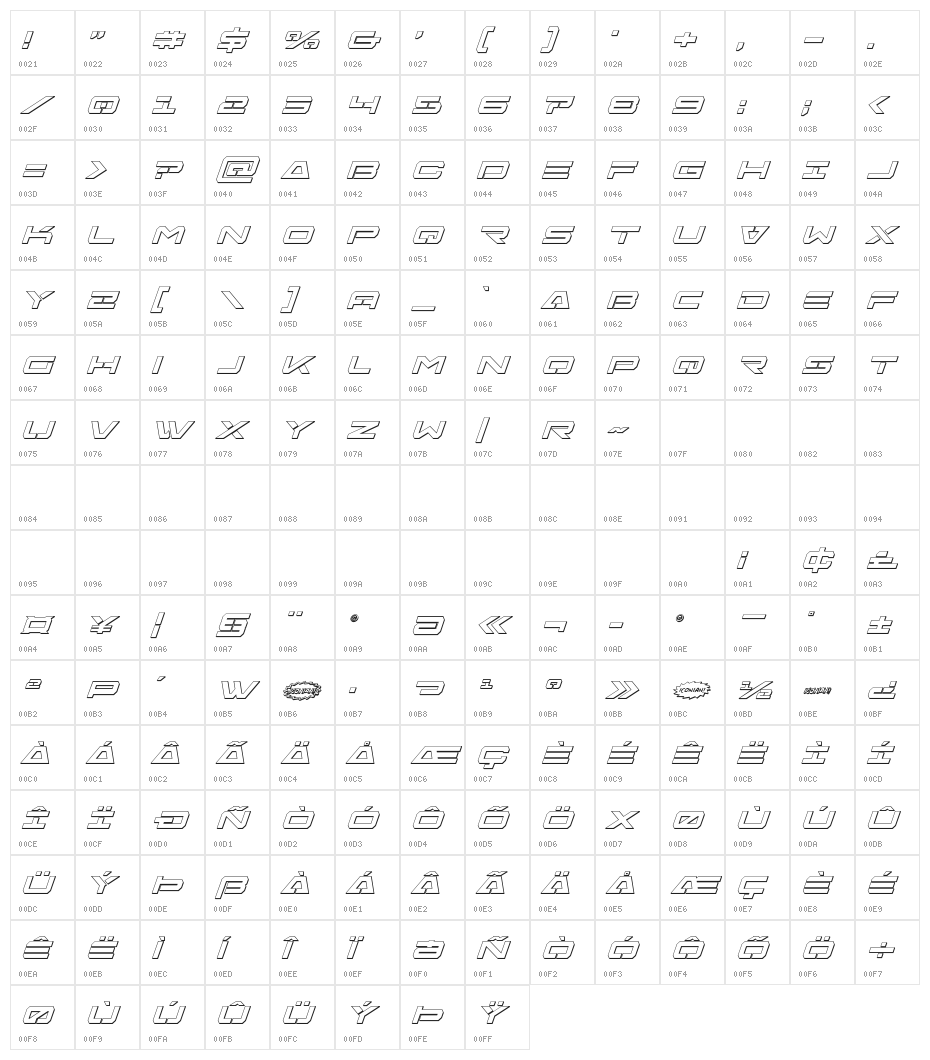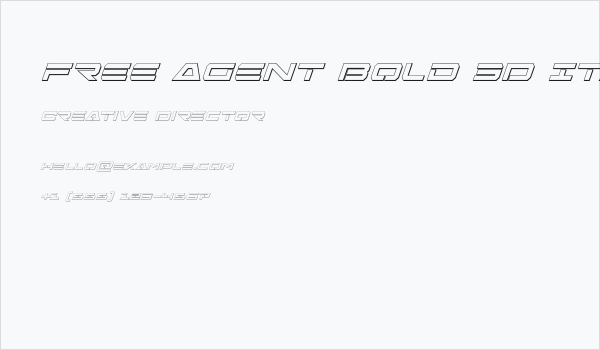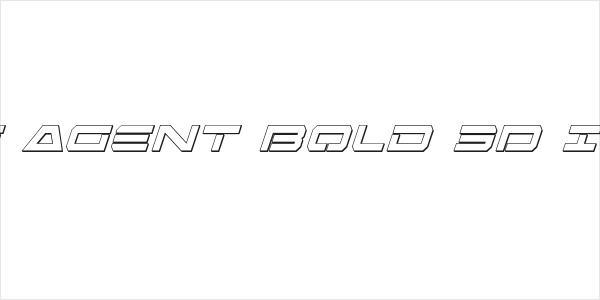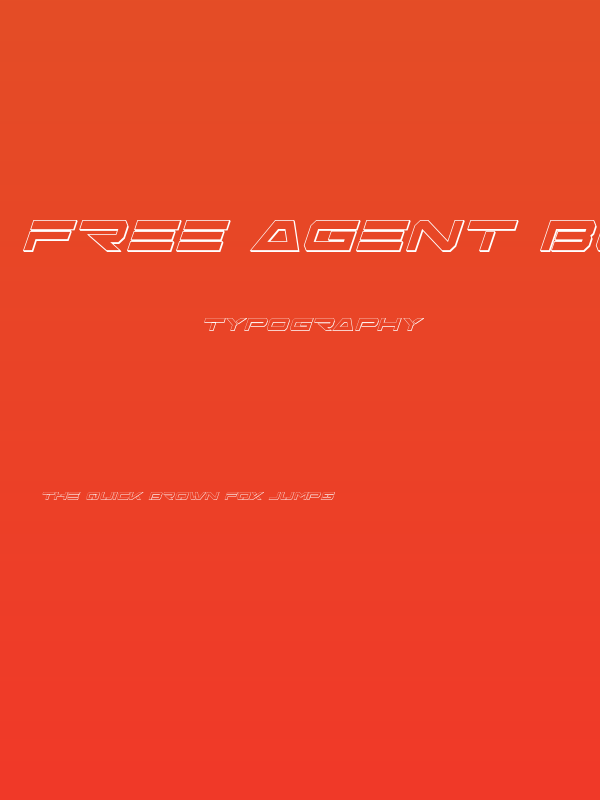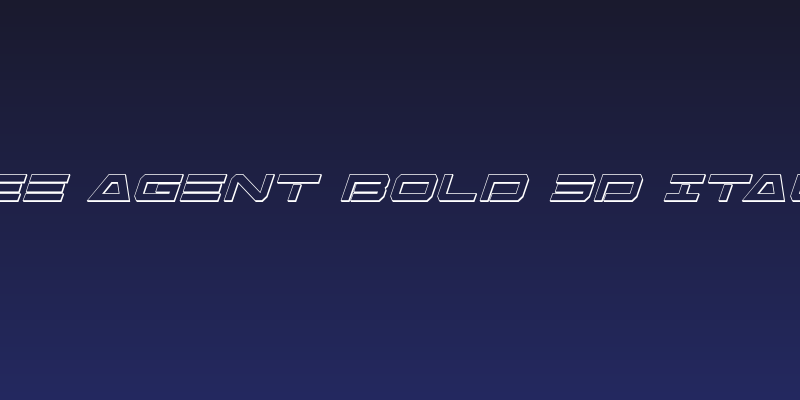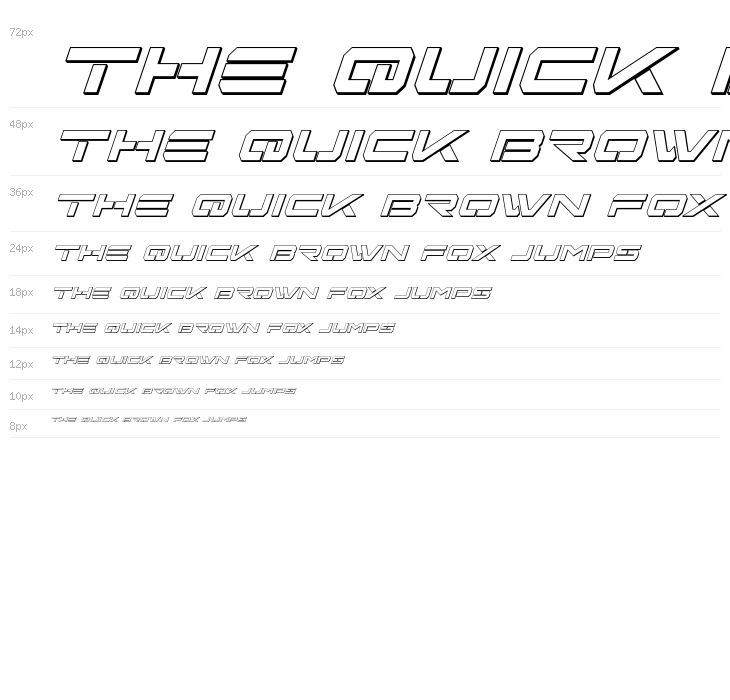
Free Agent Bold 3D Italic Font
Free Agent Bold 3D Italic Description
This font features a bold, three-dimensional design with italicized characters, giving it a dynamic and futuristic appearance. The letters are outlined, creating a sense of depth and movement. The geometric shapes and sharp angles contribute to its modern and edgy style, making it stand out. The uppercase and lowercase letters maintain consistent styling, while the numerals and special characters complement the overall aesthetic. This font is ideal for projects that require a strong visual impact and a contemporary feel.